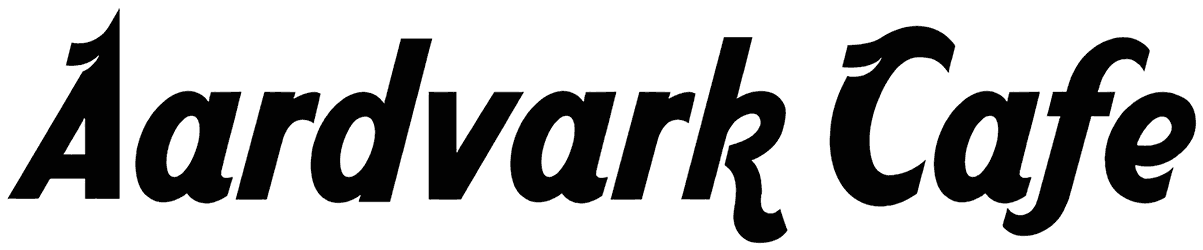
Aardvark Cafe Font
Aardvark Cafe is a sans serif font that may be used to add a unique flair to your digital projects and help you achieve a wide range of professional goals. Your presentation will have a touch of style and fun with this fancy font.
This elegant font is perfect for anything from coffee shop branding and packaging to posters. You can say goodbye to tedious procedures and give them a try if you’re up for an adventure.